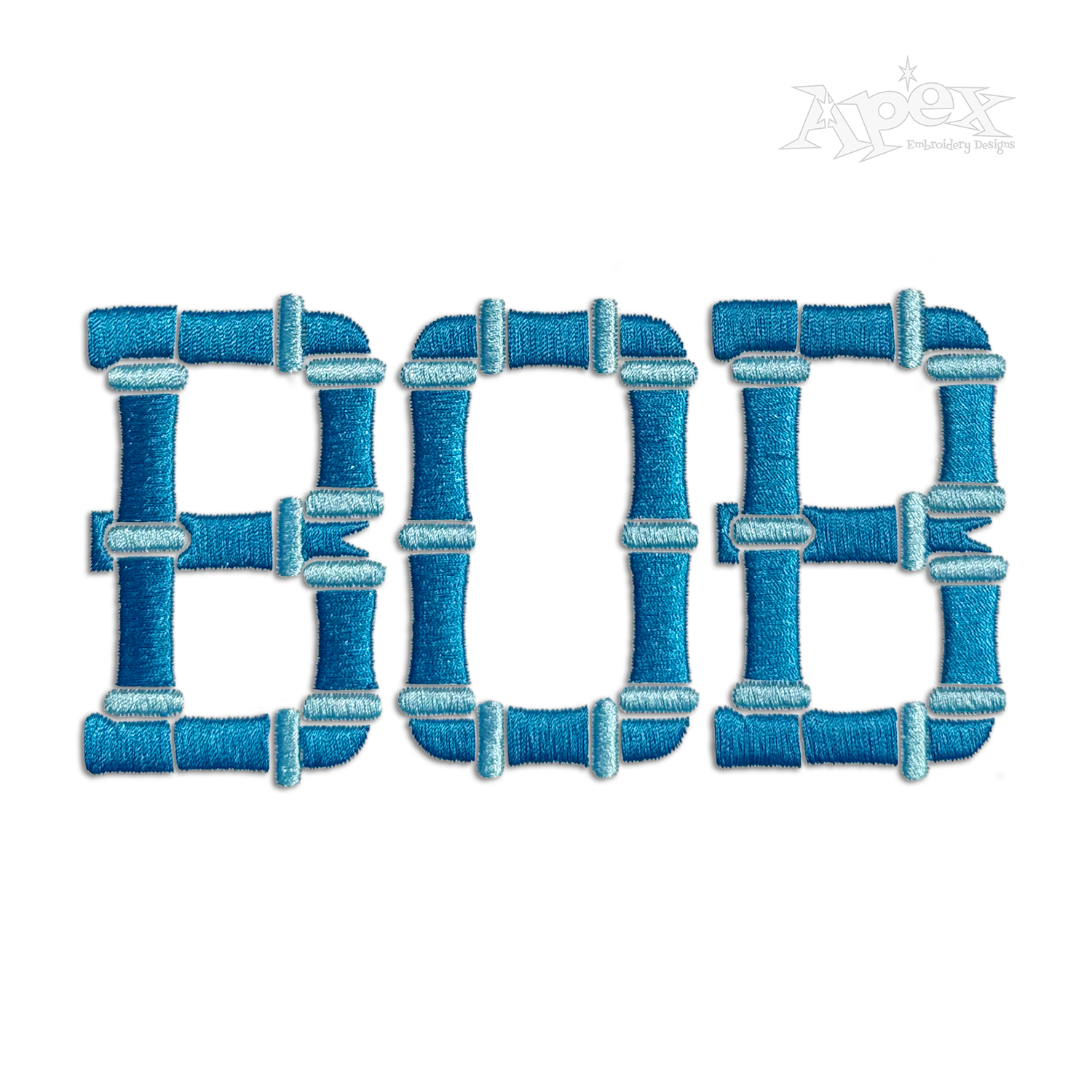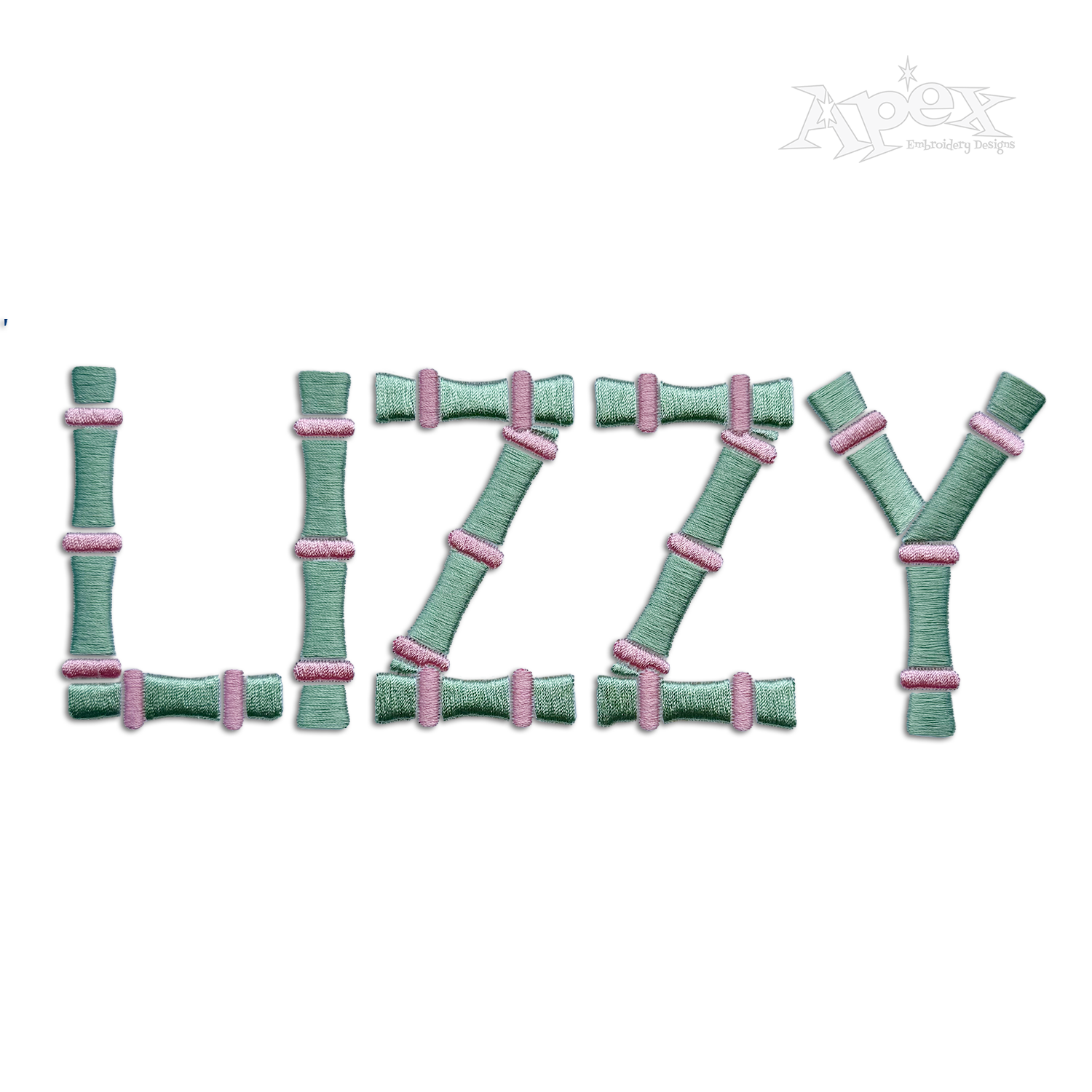
Bamboo Block Embroidery Font
Evoking sun-drenched verandas, rattan-accented retreats, and the enduring allure of classic Palm Beach chinoiserie, the Bamboo Block Embroidery Font brings an organic, architectural sophistication to your embroidery frame. When digitizing this alphabet, our vision was to marry the structured clarity of a modern block letterform with the rhythmic, sculpted beauty of natural bamboo stalks. Each letter balances clean geometry with tactile charm, transforming everyday textiles into tailored, bespoke resort wear and timeless heirloom pieces that feel effortlessly curated.
Digitized with immaculate precision across three proportional scales, this collection ensures flawless stitch density and crisp edge definition across a wide spectrum of embroidery canvases:
- 1-Inch Height: Ideal for refined initials on collars, cuffs, delicate guest linens, and compact accessories.
- 2-Inch Height: The classic monogram size, striking an impeccable balance for cocktail napkins, dinner linens, cosmetic cases, and resort apparel.
- 3-Inch Height: A bold, architectural statement scale engineered for canvas totes, bath sheets, decorative pillow shams, and center-chest monograms.
Project Ideas for Bamboo Block
With its breezy, tropical chic disposition, Bamboo Block shines across refined interior accents and personalized gifting projects:
- Luxury Table Linens: Stitch crisp contrast initials onto hemstitched linen cocktail napkins, placemats, or runner sets for an elevated coastal entertaining aesthetic.
- Bespoke Resort Wear: Monogram linen button-downs, crisp cabana shirts, sun hat bands, and poolside caftans for tailored vacation elegance.
- Heirloom Bedding & Bath: Elevate pima cotton shams, waffle-weave robes, and plush guest hand towels with clean, three-letter architectural monograms.
- Heavy Canvas Totes & Tennis Bags: Create striking statement pieces by pairing bold 3-inch letters on structured boat totes, racquet covers, and weekend duffels.
- Personalized Bridal Gifting: Craft unforgettable keepsakes for coastal or destination weddings, from bride-and-groom pool slides to personalized trousseau pouches.
The distinctive silhouette of Bamboo Block lends itself beautifully to both traditional and unexpected placements:
- Corner Diagonal on Table Linens: Orient single initials or classic monograms diagonally across the point of a cocktail napkin or dinner napkin, set approximately 1.5 to 2 inches from the hem for symmetrical balance.
- Center Chest or Pocket: Position 1-inch or 2-inch lettering squarely above a shirt pocket or centered on the left chest to establish a polished, bespoke boutique feel.
- Guest Towel Border: Center 2-inch or 3-inch letters 1.5 inches above the woven dobby border of hand towels, providing a visually anchored focal point.
- Centered on Canvas Panels: For travel pouches and open-top totes, place the 3-inch motif dead-center between vertical webbing straps to emphasize the clean, vertical lines of the bamboo stalks.
Bamboo Block Craft & Letterform Details
Digitizing botanical motifs into disciplined block typography demands exceptional control over thread dynamics. Rather than settling for flat, uniform satin columns, we carefully modeled each segment to emulate the organic anatomy of living bamboo culms. Notice the deliberate, sculptural swellings at every node and joint, giving each letter tactile depth without causing excessive thread buildup.
The satin stitch angles have been meticulously plotted along every curve and horizontal crossbar. As the needle traverses each stroke, the stitch direction shifts dynamically to capture ambient light, producing a natural, luminous sheen reminiscent of polished bamboo cane. Underlay stitching is calculated specifically for each of the three sizes to prevent tunneling on lightweight linens while providing enough structural foundation to float gracefully atop textured pique, waffle weaves, and heavy canvas. The result is a smooth, continuous stitch-out with minimal trims, zero bulk at intersections, and an unforgettable artisanal finish.